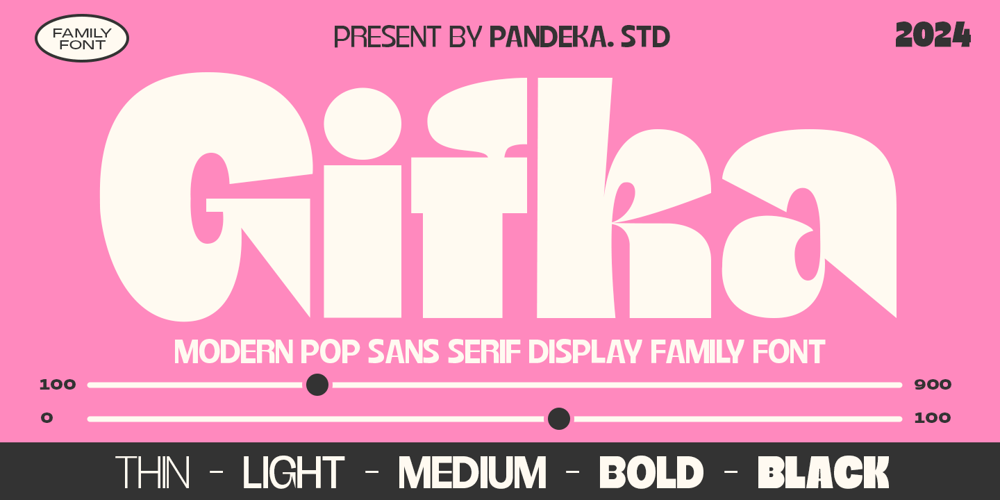
Gifka
Gifka font
Gifka Font Family was designed by Sagara Nararya and published by Pandeka Studio. Gifka contains 5 styles and family package options. Introducing Gifka – A fun and modern pop font!Gifka is inspired by today’s vibrant designs and brings a fresh, energetic vibe to your projects. With its unique style, Gifka is perfect for adding a special touch to your work.Gifka comes in 5 font styles (Thin, Light, Medium, Bold and Extra Bold), Its weight is superior in posters, social media, headlines, magazine titles, clothing, large print formats – and wherever you want to be seen.What’s you get? Gifka Main Files Thin, Light, Medium, Bold and Extra Bold Unique letterforms Works on PC & Mac Simple Installations Accessible in the Adobe Illustrator, Adobe Photoshop, Microsoft Word even work on Canva PUA Encoded Characters Fully accessible without additional design software. Drop any message if you any question, thanksPandeka Studio